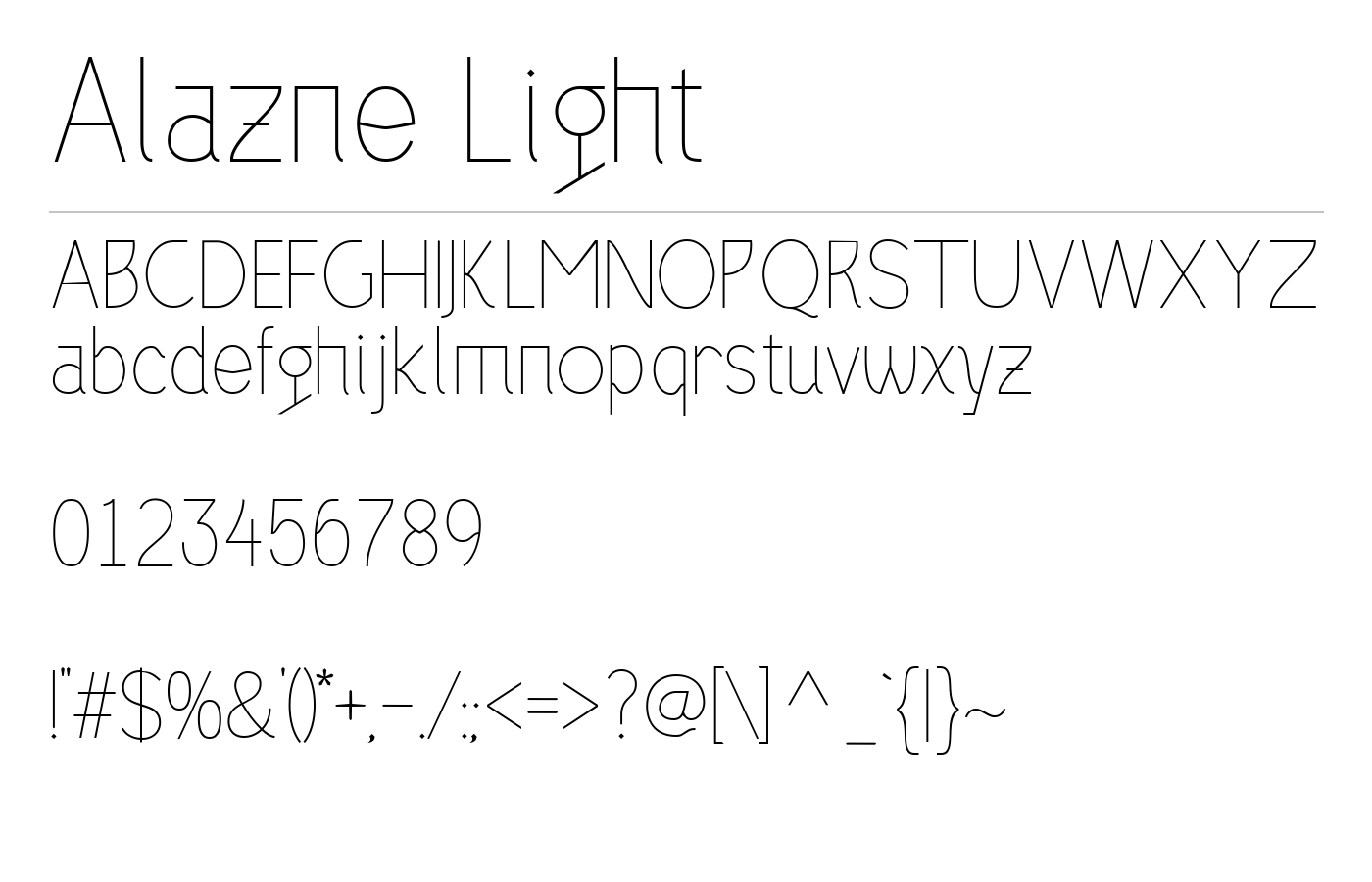
Alazne Light is a delicate and modern sans serif font characterized by extremely thin strokes and a tall, narrow structure that gives it an elegant and airy feel. Its unique letterforms with subtle geometric influences and high x-height make it suitable for stylish headlines and branding that demand a sophisticated, contemporary look. This font works well in fashion, editorial, and minimalist design contexts where a refined yet distinctive presence is desired.
Alazne Font
About Alazne Font